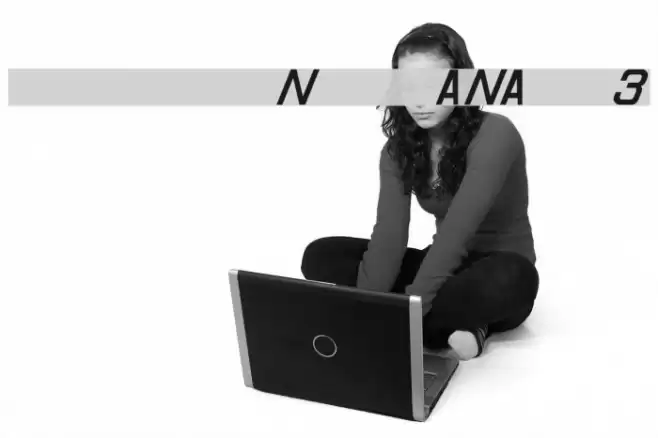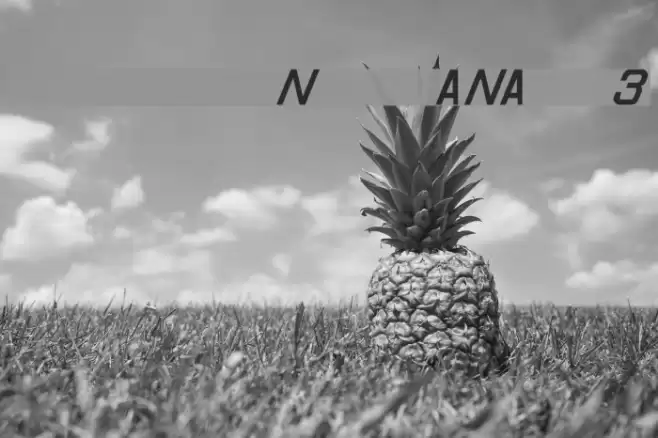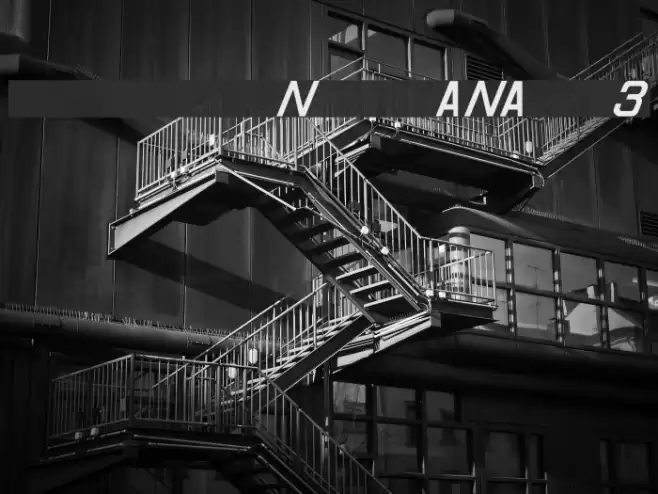
Registration Number ANA I v3 Font
Registration Number ANA I v3 Description
This font features a modern, sleek design with a slightly italicized style. The characters are bold and have a consistent stroke width, giving them a strong and impactful appearance. The numbers are particularly distinctive, with a futuristic and technical feel. The overall look is clean and minimalistic, making it suitable for a variety of applications where clarity and precision are important. The spacing between characters is normal, ensuring readability while maintaining a compact appearance.
A modern, bold, and slightly italicized font with a sleek, technical appearance from Uncategorized fonts.
- Proposed Projects: Ideal for use in technology branding, automotive design, digital interfaces, and modern advertising.
- Use Case: Headlines, Logos, Digital Interfaces